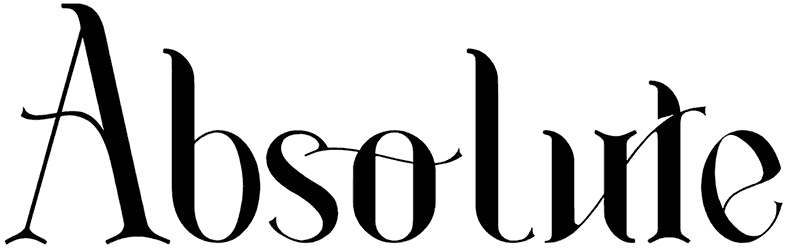
Absolute Font
Absolute font is for your creation; that priority is to be stylish. This elegant font does not include numbers, but the mesmerizing beauty of uppercase and lowercase letters with elongated curves can give a distinctive l…
Absolute font is for your creation; that priority is to be stylish. This elegant font does not include numbers, but the mesmerizing beauty of uppercase and lowercase letters with elongated curves can give a distinctive look to your designs. Resource Boy has a reach and ever-growing inventory. Check it out and find more of these unique retro fonts for your future projects.